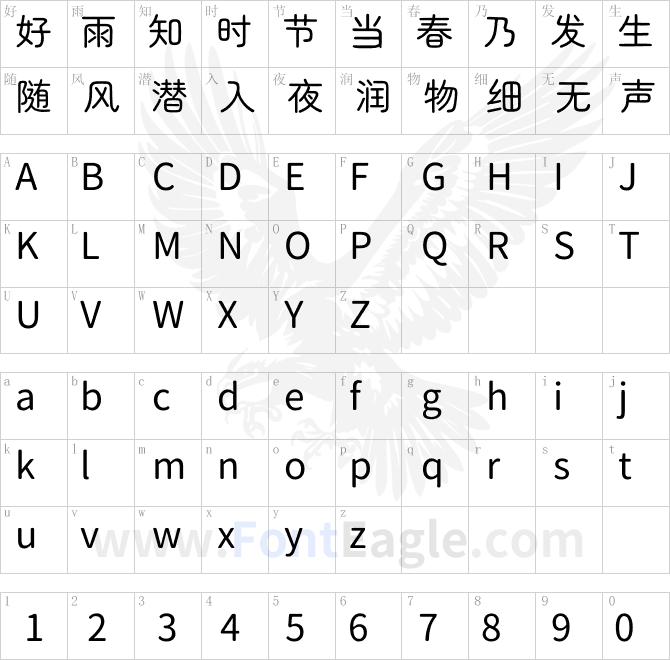
- Font name:生馬路口圓體-Regular CJK TC
- Font Subfamily ID:FontForge 2.0 : Raw Maruko Gothic CJK TC Regular : 20-4-2020
- Font Full Name:生馬路口圓體-Regular CJK TC
- Postscript:RawMarukoGothicCJKtc-Regular